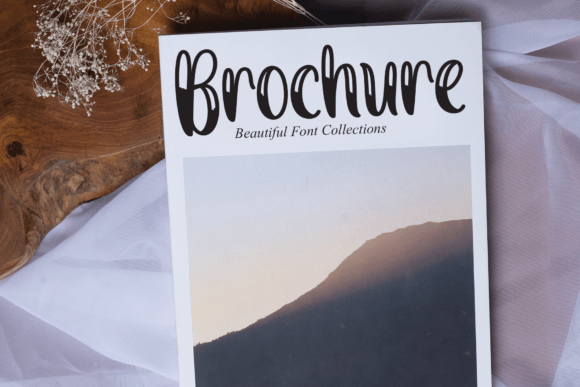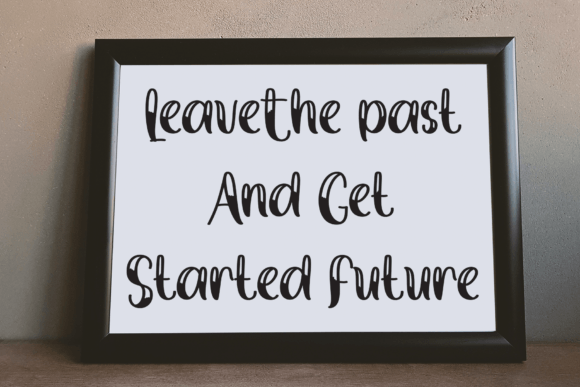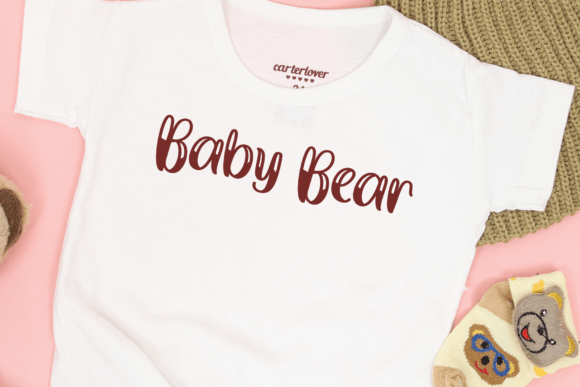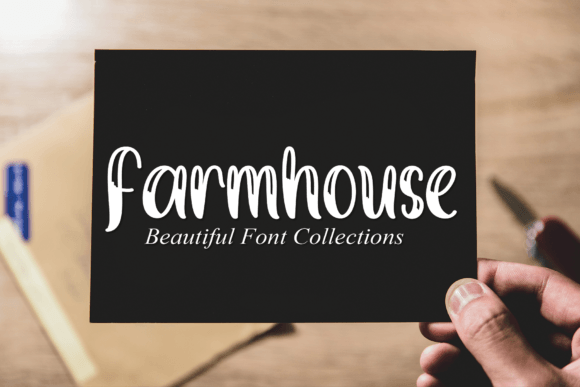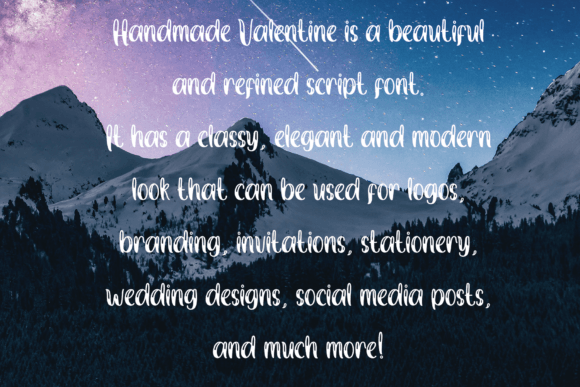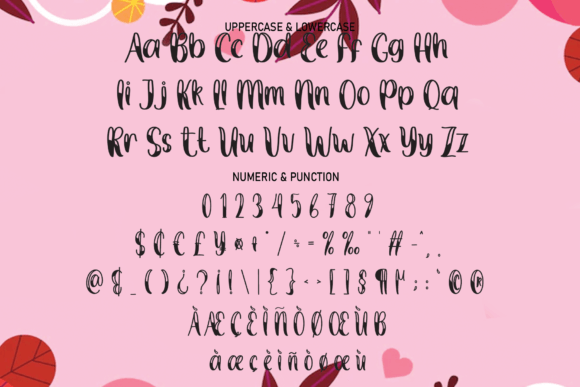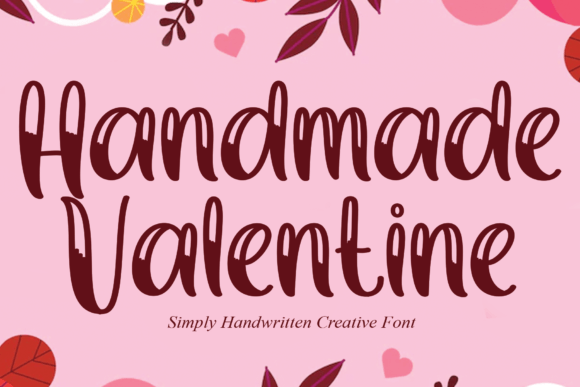
Introducing Handmade Valentine Font: The Perfect Addition to Your Crafty Ideas
Are you a designer or crafter looking for a unique and eye-catching font to add to your Valentine’s Day projects? Look no further than the Handmade Valentine Font! This cool handwritten display font is sure to make your crafty ideas stand out and leave a lasting impression.
What is Handmade Valentine Font?
Handmade Valentine Font is a beautifully crafted handwritten font that exudes a sense of warmth and personality. Its unique and irregular strokes give it a charming, hand-crafted feel that’s perfect for a variety of design projects, from Valentine’s Day cards and invitations to DIY crafts and scrapbooking.
Key Features of Handmade Valentine Font
- Handwritten style: Handmade Valentine Font boasts a genuine handwritten look that’s sure to add a personal touch to your designs.
- Display font: With its bold and eye-catching appearance, this font is perfect for headlines, titles, and other display purposes.
- Crafty vibe: The font’s irregular strokes and charming imperfections give it a distinctly crafty feel that’s perfect for DIY enthusiasts and makers.
How to Use Handmade Valentine Font in Your Designs
There are countless ways to use Handmade Valentine Font in your designs, depending on your creative vision and goals. Here are a few ideas to get you started:
- Valentine’s Day cards and invitations: Add a personal touch to your Valentine’s Day cards and invitations with this beautiful handwritten font.
- DIY crafts: Use Handmade Valentine Font to add a decorative touch to your DIY crafts, such as paper flowers, gift tags, and more.
- Scrapbooking: This font is perfect for scrapbooking projects, adding a personal and emotional touch to your photo albums and memory books.
- Social media graphics: Use Handmade Valentine Font to create eye-catching social media graphics, such as Valentine’s Day-themed posts and stories.
Tips for Getting the Most Out of Handmade Valentine Font
To make the most of Handmade Valentine Font, here are a few tips to keep in mind:
- Experiment with colors: Try pairing the font with different colors and textures to add depth and interest to your designs.
- Mix and match: Combine Handmade Valentine Font with other fonts and design elements to create a unique and visually appealing look.
- Play with sizes: Experiment with different font sizes to create visual hierarchy and emphasize certain elements of your design.